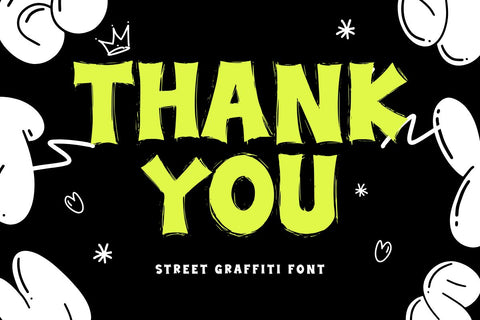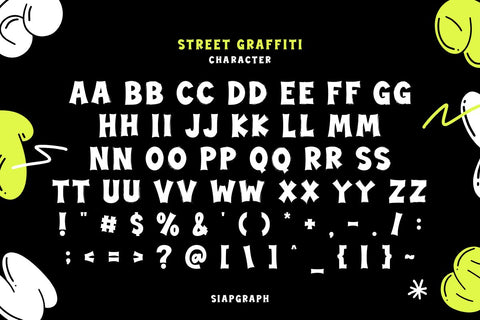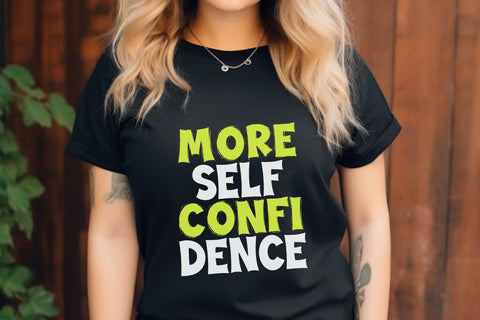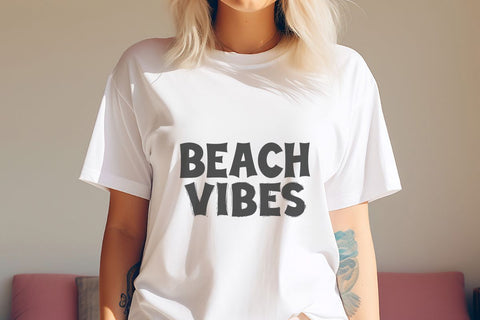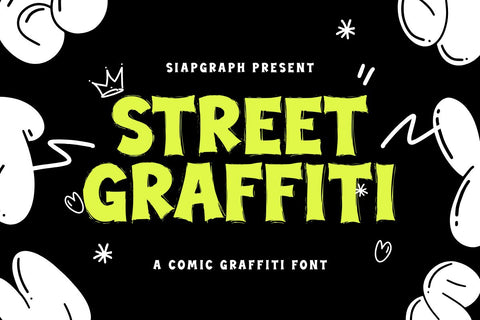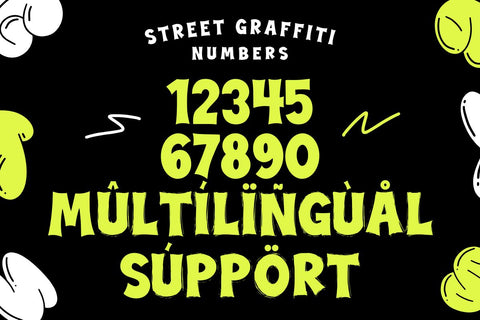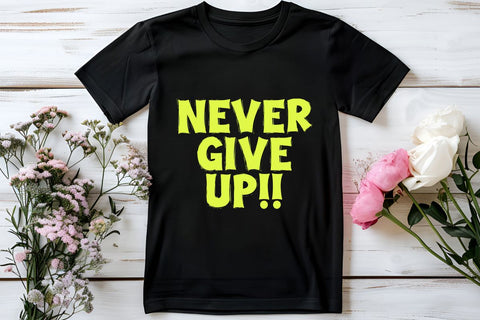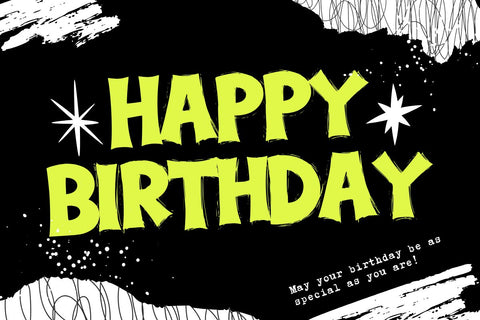
Street Graffiti - Comic Graffiti Font
Street Graffiti is a fancy graffiti font that brings a fun, cool vibe to your creative projects. Its thick strokes and playful curves make it perfect for adding a cool flair to any design.